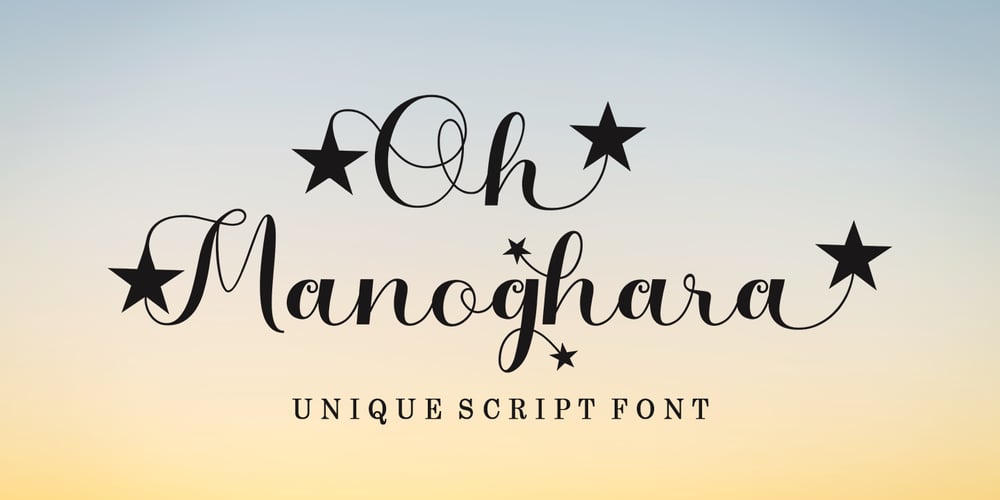
Oh Manoghara
Oh Manoghara font
Oh Manoghara Font Family was designed by Mu Fazzal and published by Bosstypestudio. Oh Manoghara contains 1 styles and family package options. Oh Manoghara is a beautiful and light handwritten font with a romantic twist. Use it to add an authentic spark to any design project. It includes 1-10 amazing alternates, which gives you the opportunity to create multiple unique designs with just this one download. It is suitable for logos, web, stationary kits, banners, greeting cards, quotes and every other design which needs an elegant touch. Have a great day! Thanks 🙂